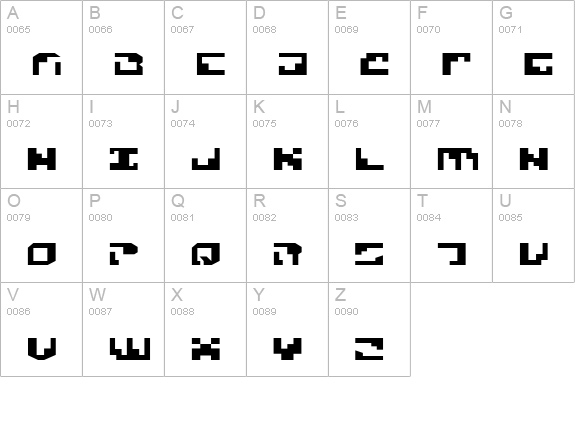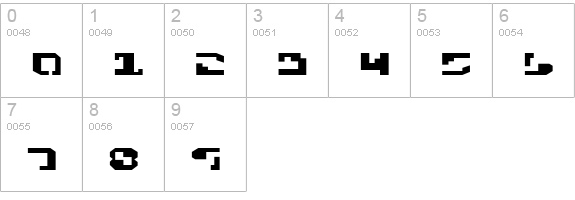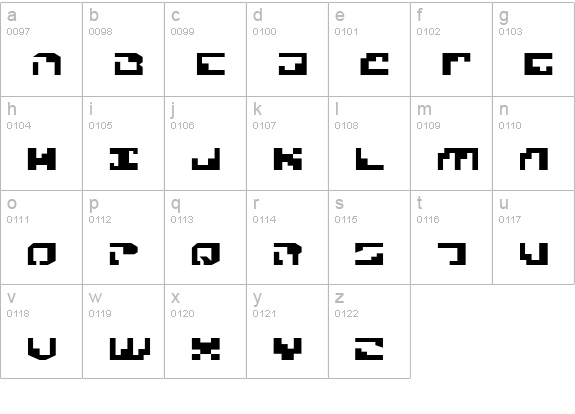
Xenophobia Expanded is a distinctive, extended-width variant in the Xenophobia typeface family \xE2\x80\x94 well suited to design and typography projects.
Introducing Xenophobia Expanded font, a bold and impactful typeface designed to make a statement. With its sleek lines and modern aesthetic, this font exudes confidence and strength. Perfect for headlines, logos, and other design projects that demand attention. Xenophobia Expanded is not just a font, it's a powerful tool to amplify your message and captivate your audience. Its extended character set allows for versatility and creativity in your designs. Whether you're crafting a poster, creating a website, or designing a branding package, Xenophobia Expanded will ensure your text stands out. And the best part? Xenophobia Expanded font is available for free download at FontsMarket.com. That's right, you can elevate your designs with this striking font without breaking the bank. Don't miss out on this opportunity to add Xenophobia Expanded to your font collection and take your designs to the next level.